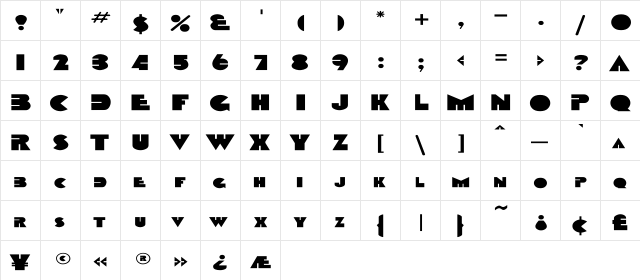
Sharkstooth Wd Regular
Design Context for Sharkstooth Wd Typeface
Sharkstooth Wd is a composed and adaptable typeface that performs quietly and consistently across a wide range of design contexts.